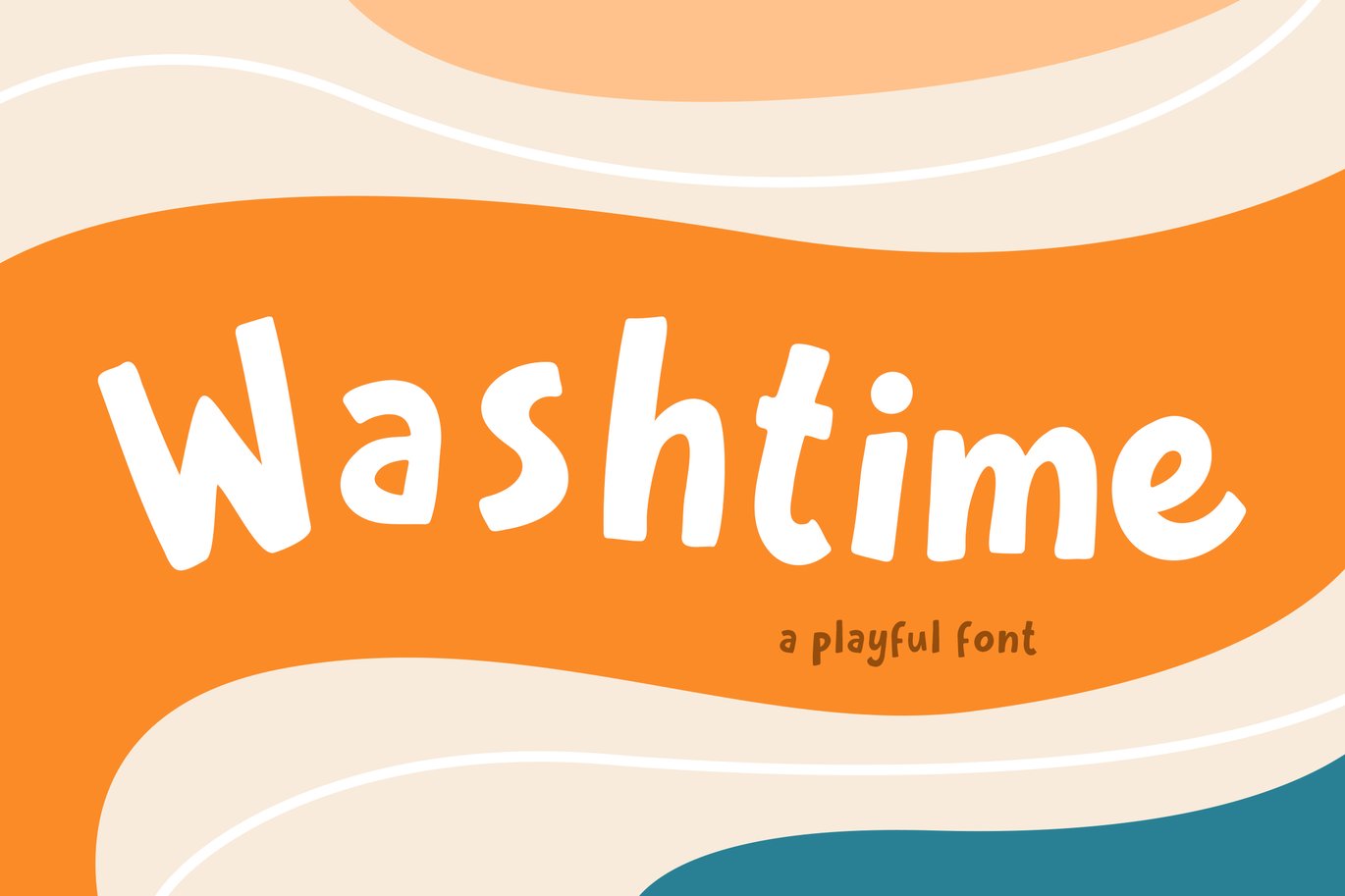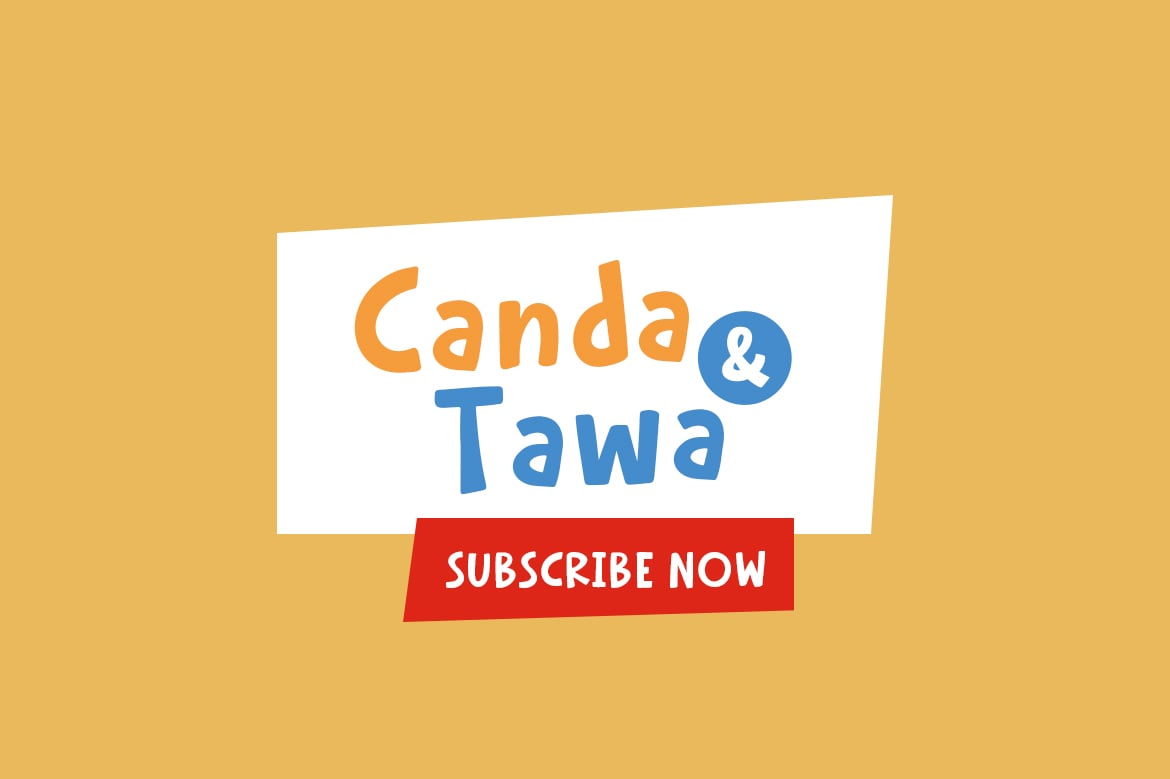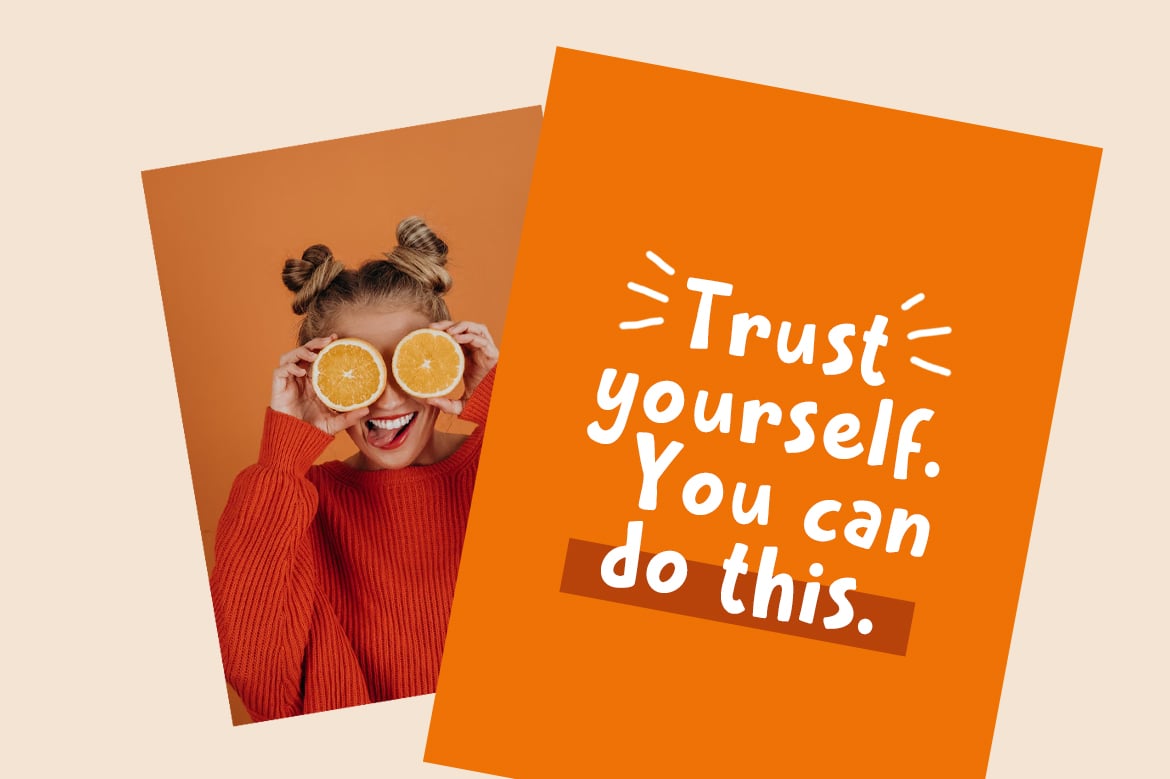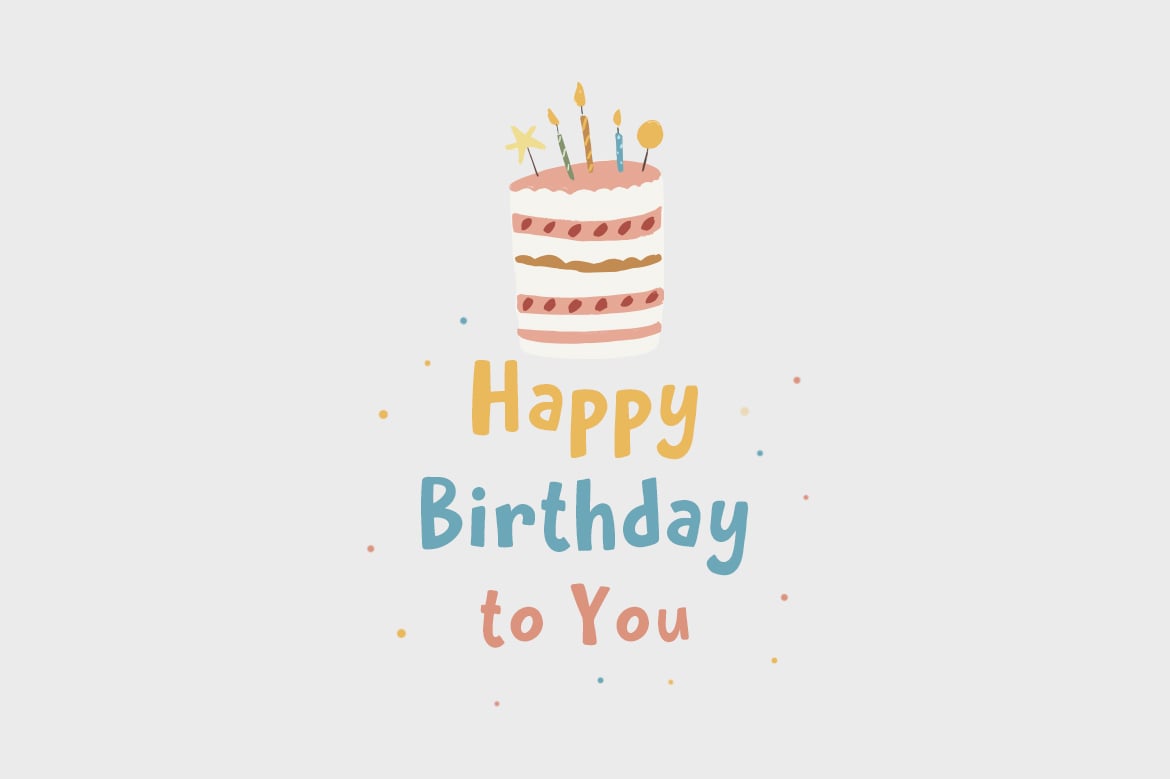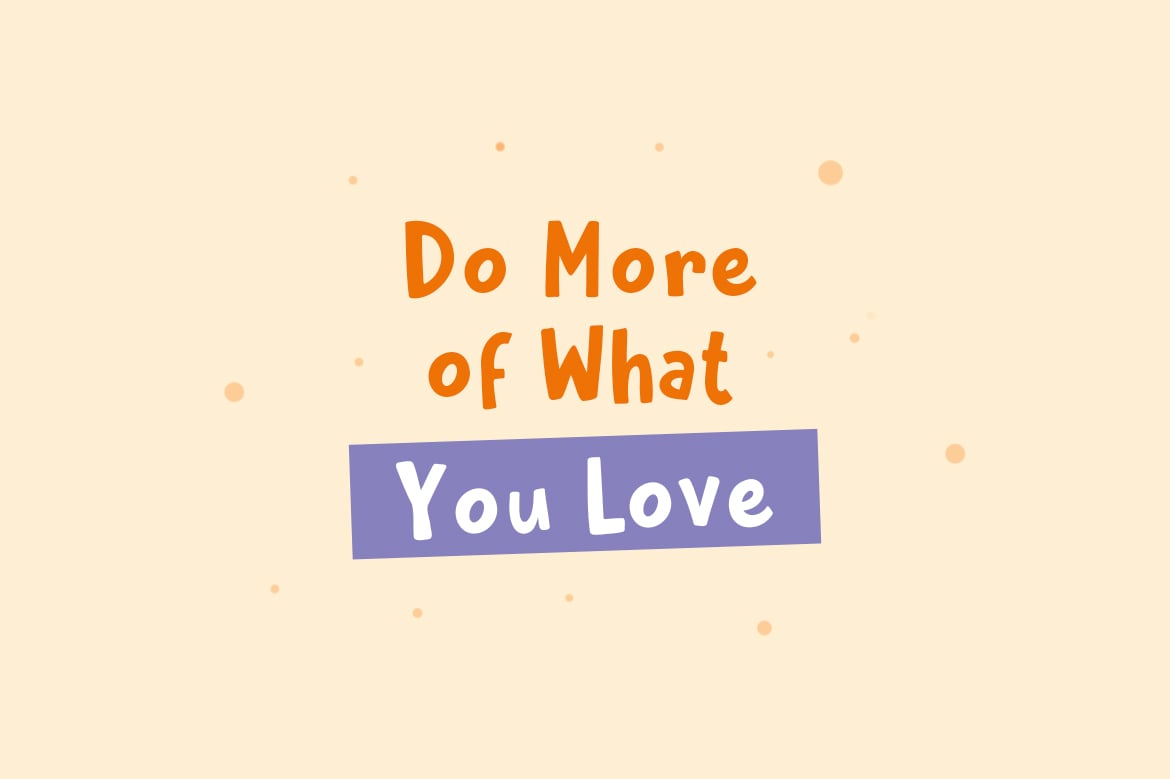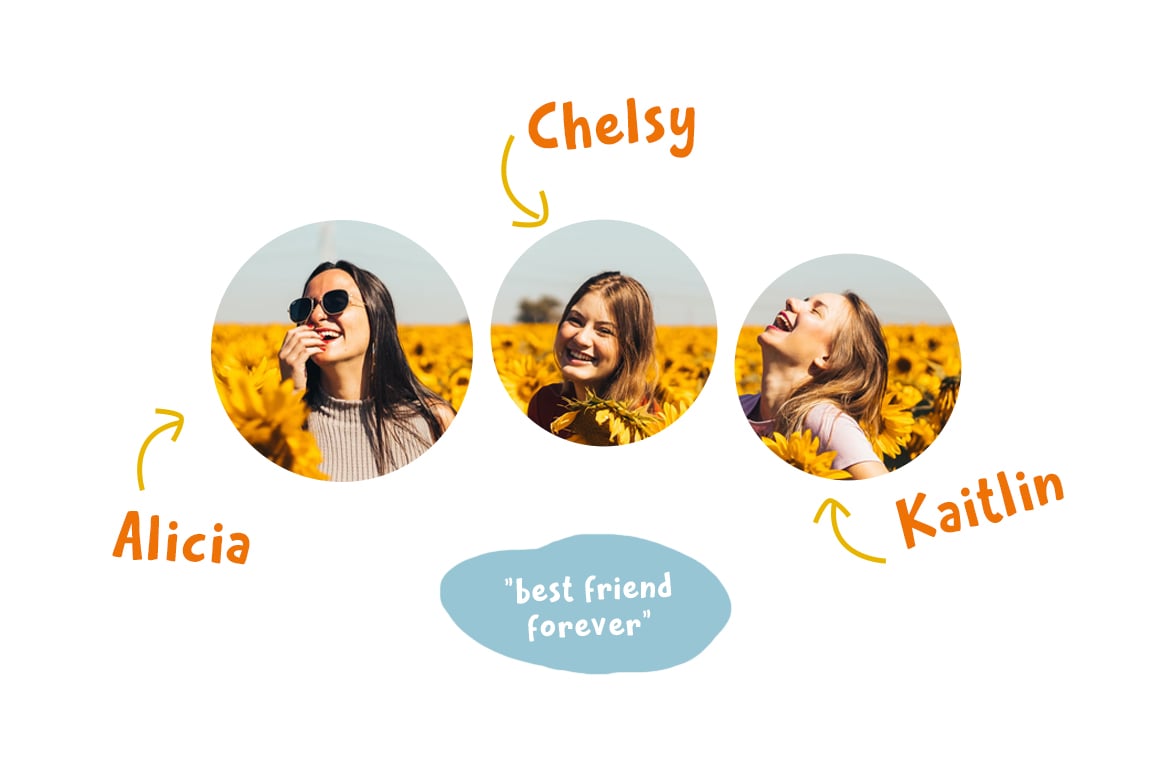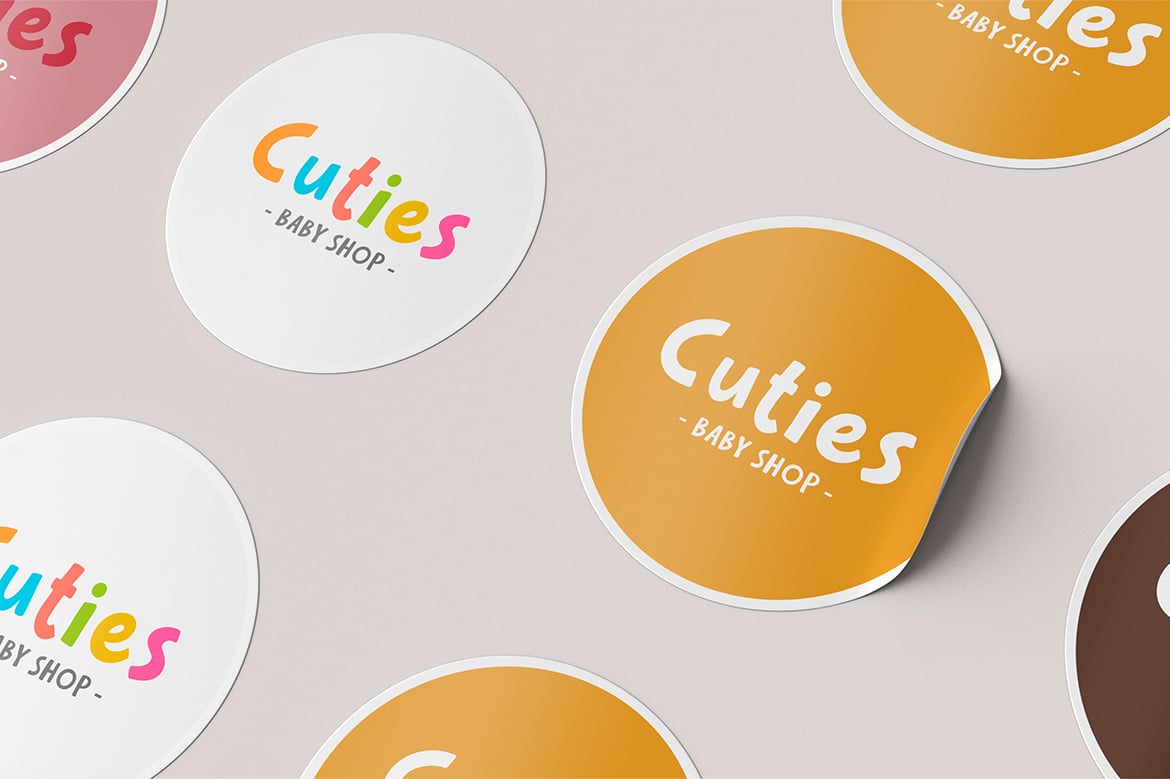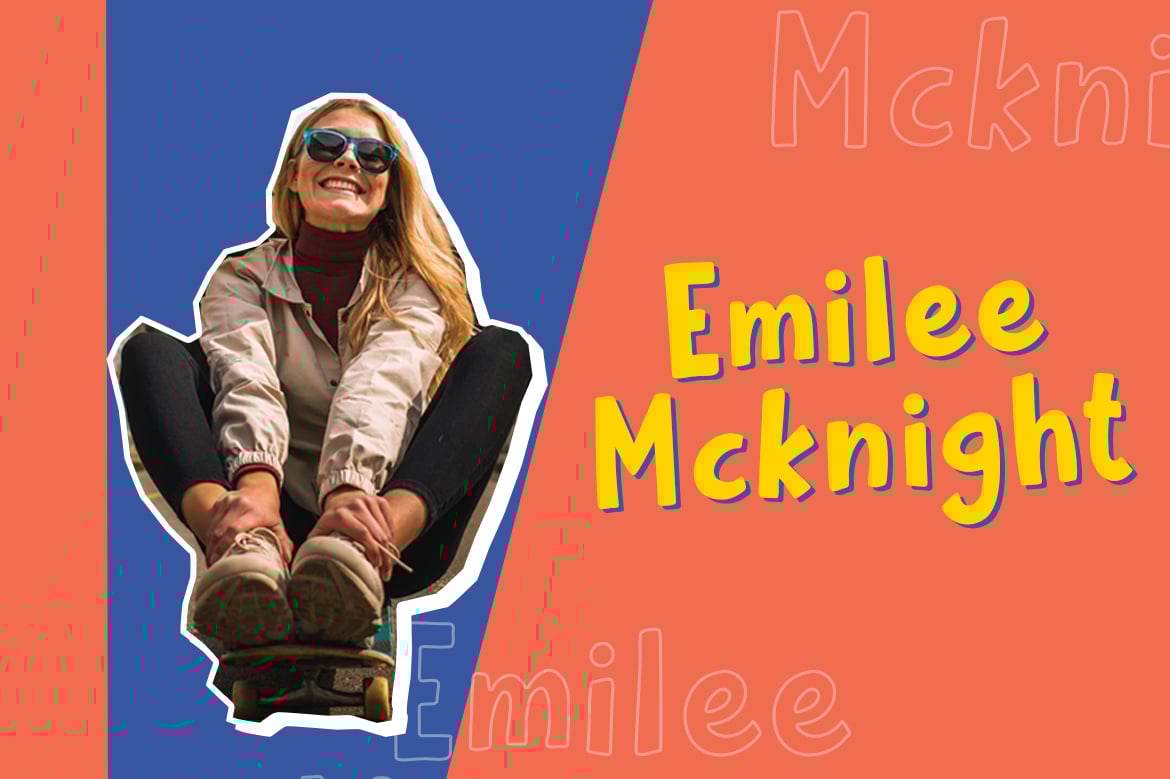
Washtime – Playful Font
Introducing Washtime – Playful Font.
Hand-drawn display font with fun vibes. Perfect for creating logos, quotes, greeting cards, book cover, posters, packaging and so much more. You can create easily and fun designs.
All fonts containing upper & lowercase characters, numerals, and a large range of punctuation.